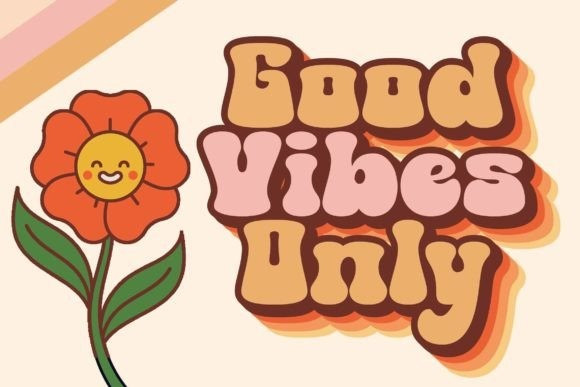
Retro Child Font
Retro Child Display Font is a bold and quirky display font with a cool, funky vibe. Its unique letter forms make this font perfect for groovy band posters, hippie logos, social media posts, packaging, magazine covers, and more.